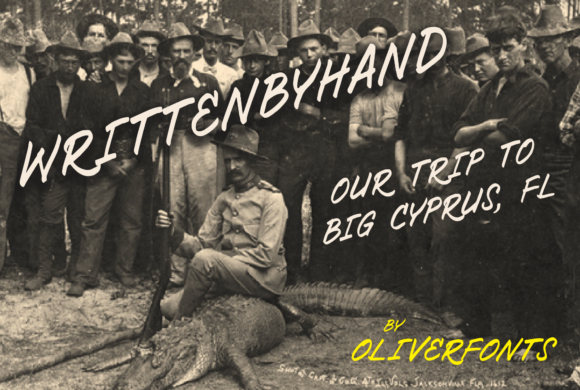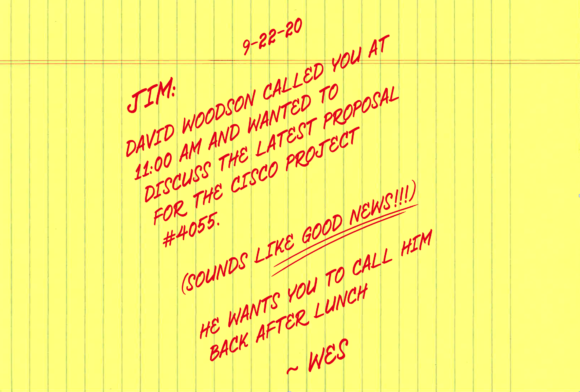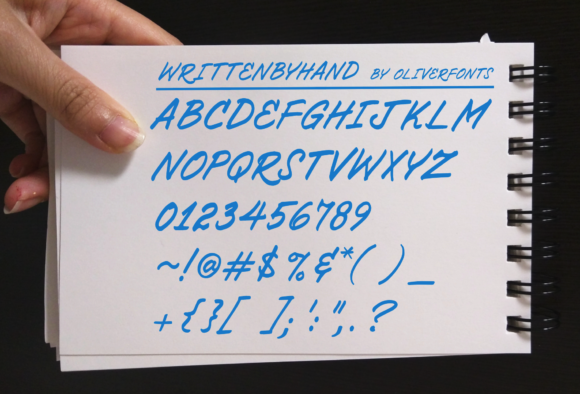
HomePersonal Use FreeWritten by Hand Personal Use Free Written by Hand FacebookTwitterPinterestWhatsApp 1 of 3 About Written by Hand Font Written By Hand is a casual all caps script font. It is perfect for adding a handwritten touch to your designs! DOWNLOAD NOW People also explored Apollo Matric Font Reading Font Realistic Mock-ups on Vintage Background Tomahawk Camo Font Baby Cute Font Corolla Font Kajiro Font Loughalot Font Jumble Font 204 0 TagsWritten by Hand Font Previous articleBashiraNext articleCharlie LEAVE A REPLY Cancel reply Comment: Please enter your comment! Name:* Please enter your name here Email:* You have entered an incorrect email address! Please enter your email address here Website: Save my name, email, and website in this browser for the next time I comment. Personal Use Free Super Discount Personal Use Free Read more about this font Dealisya Personal Use Free Read more about this font Arnitta Callina Personal Use Free Read more about this font Meloche Book Personal Use Free Read more about this font BLOG Best Fonts for T-Shirt Design – Top 2025 Picks In 2025, t-shirt design has become more than just fashion—it's a form of self-expression. Whether you're... The 10 Best Handwriting Fonts to Add Personality to Your Designs To increase your work productivity, choose the most readable fonts. Best Fonts for YouTube Videos: Make Your Thumbnails Stand Out